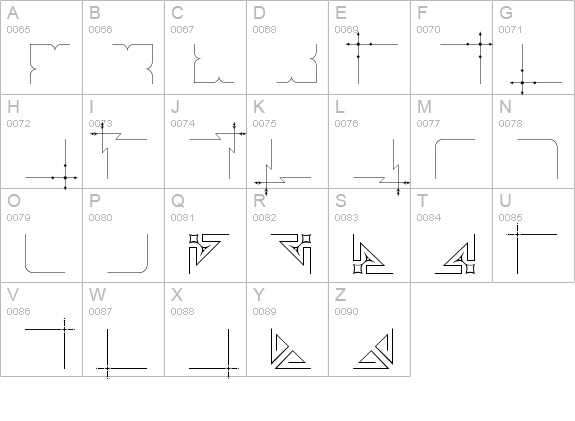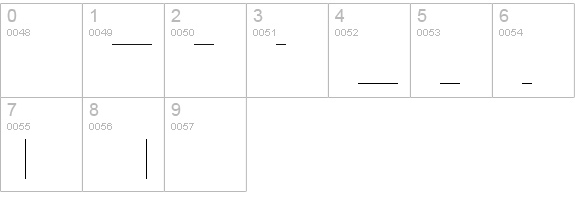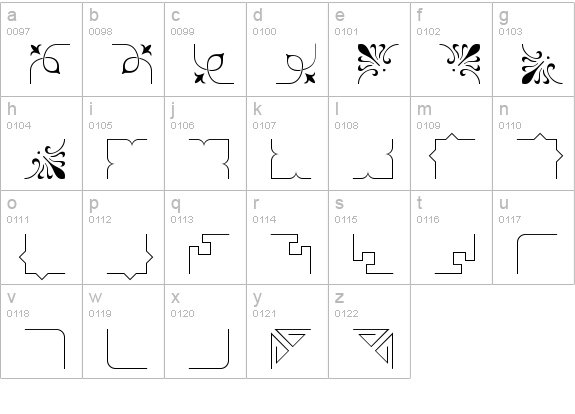
HotmetalBorders-One is a unique and eye-catching display font that adds a touch of elegance to any design. Its intricate borders and ornate details make it perfect for creating stunning headings, titles, and logos. With a vintage-inspired look and feel, this font is sure to make your projects stand out from the crowd. The best part? HotmetalBorders-One is completely free to download at FontsMarket.com. Whether you're working on a personal project or a professional design, this font is a versatile and stylish addition to your collection. Don't miss out on the opportunity to elevate your designs with this beautiful and free font. Download HotmetalBorders-One today and bring a touch of sophistication to your next project.